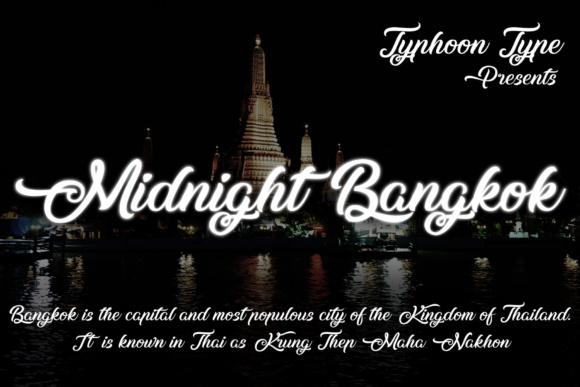
Midnight Bangkok Font
About Midnight Bangkok Font
Midnight Bangkok is a beautiful, swashy script font that will add some elegance and charm to your work. This cursive font is a great way to give your work a captivating feel.